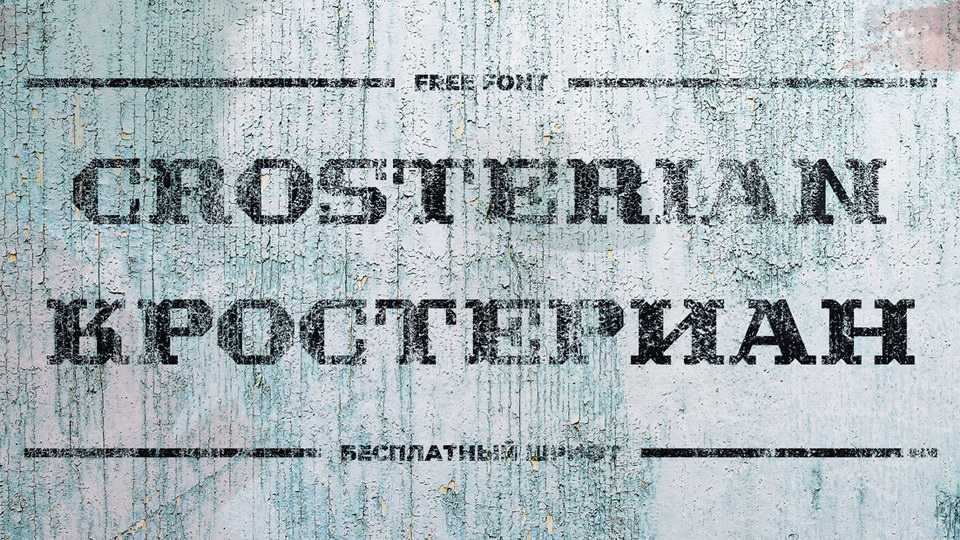
Download Crosterian font a geometric slab serif typeface inspired by Tuscan typefaces. Crosterian designed specifically for display and headline purposes.
Designer: Denis Ignatov